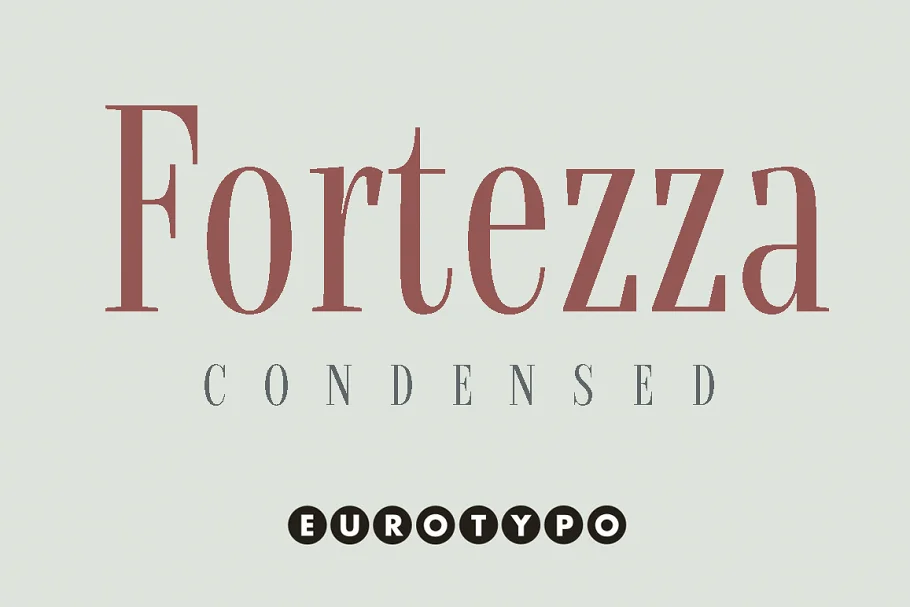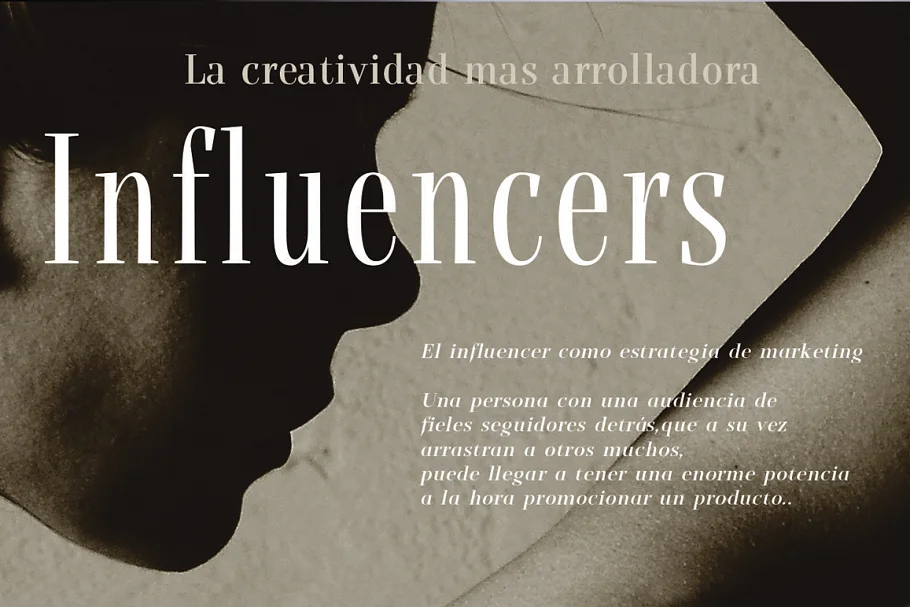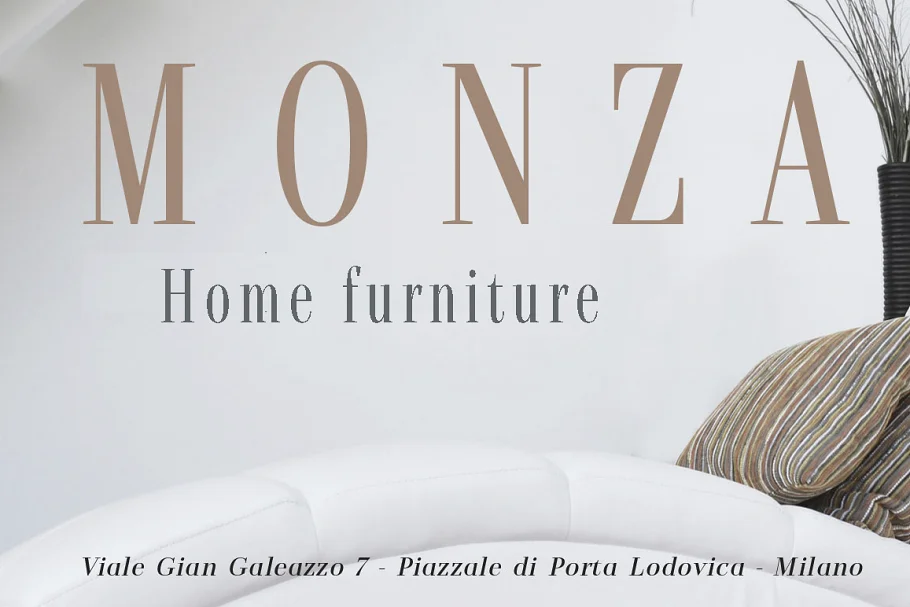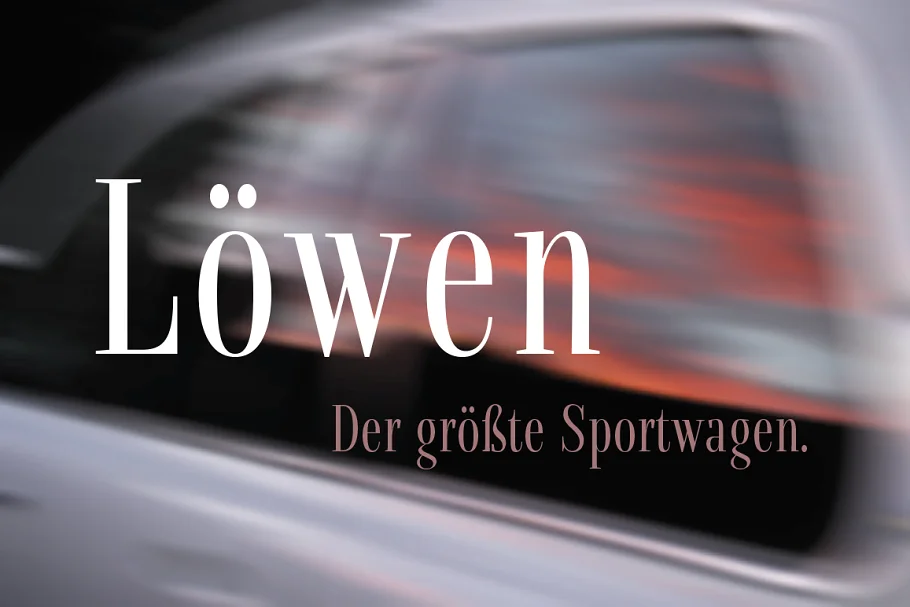
About the Fortezza Condensed Font
Fortezza Condensed Font is a font inspired by the great masters who have created the Modern Roman style: Firmin Didot (1764 -1836) and Giambattista Bodoni (1740 -1813) Both typefaces can be similar, but a trained and close vision, show clear differences in the final result, like its weight and the degree of transition of the strokes.
The type of Didot suggests greater warmth and elegance, they are characterized by extreme contrast in thick strokes and thin strokes, by the use of serifs very thin, and by the vertical stress of the letters.
While the Bodoni type conveys greater robustness and hardness. Fortezza brings together the elegance and spirit of both types, but proposes a contemporary vision, establishing a distance with certain features typical of the baroque that was manifested at that time.